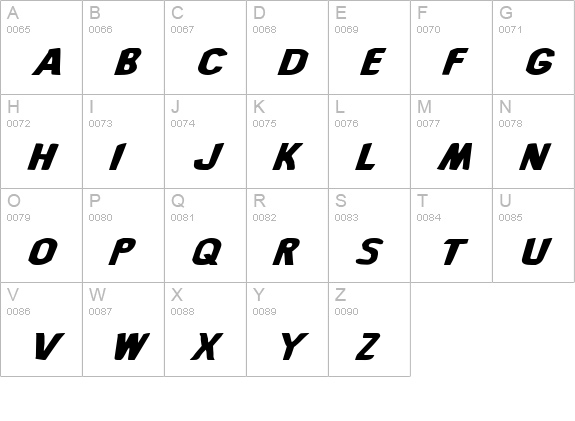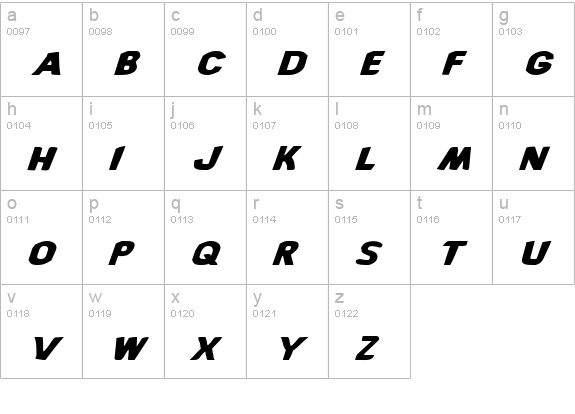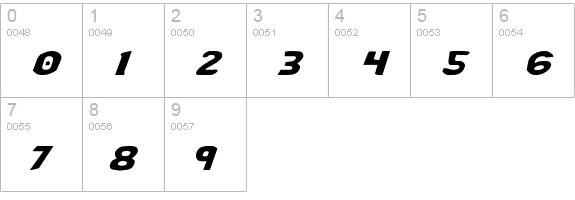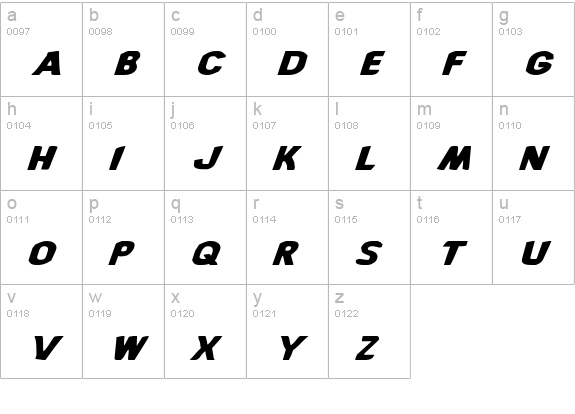
Bronic Expanded Italic Font Details
Bronic Expanded Italic is a distinctive, extended-width, italic variant in the Bronic typeface family \xE2\x80\x94 well suited to design and typography projects.
Bronic Expanded Italic font is a modern and sophisticated typeface that exudes elegance and style. Its sleek and elongated letterforms are perfect for adding a touch of sophistication to any design project. The italicized style of the font adds a dynamic and flowing element that is both eye-catching and versatile. This font is not only visually appealing but also highly practical, making it suitable for a wide range of applications including branding, advertising, and editorial design. Whether you are looking to create a sleek logo, a stylish poster, or an elegant brochure, Bronic Expanded Italic font is sure to elevate your design to the next level. And the best part? Bronic Expanded Italic font is available for free download at FontsMarket.com. Now you can access this stunning typeface without any cost, making it an excellent choice for designers looking for high-quality fonts at an affordable price. Don't miss out on the opportunity to enhance your projects with the beauty and versatility of Bronic Expanded Italic font. Download it today and elevate your design game!